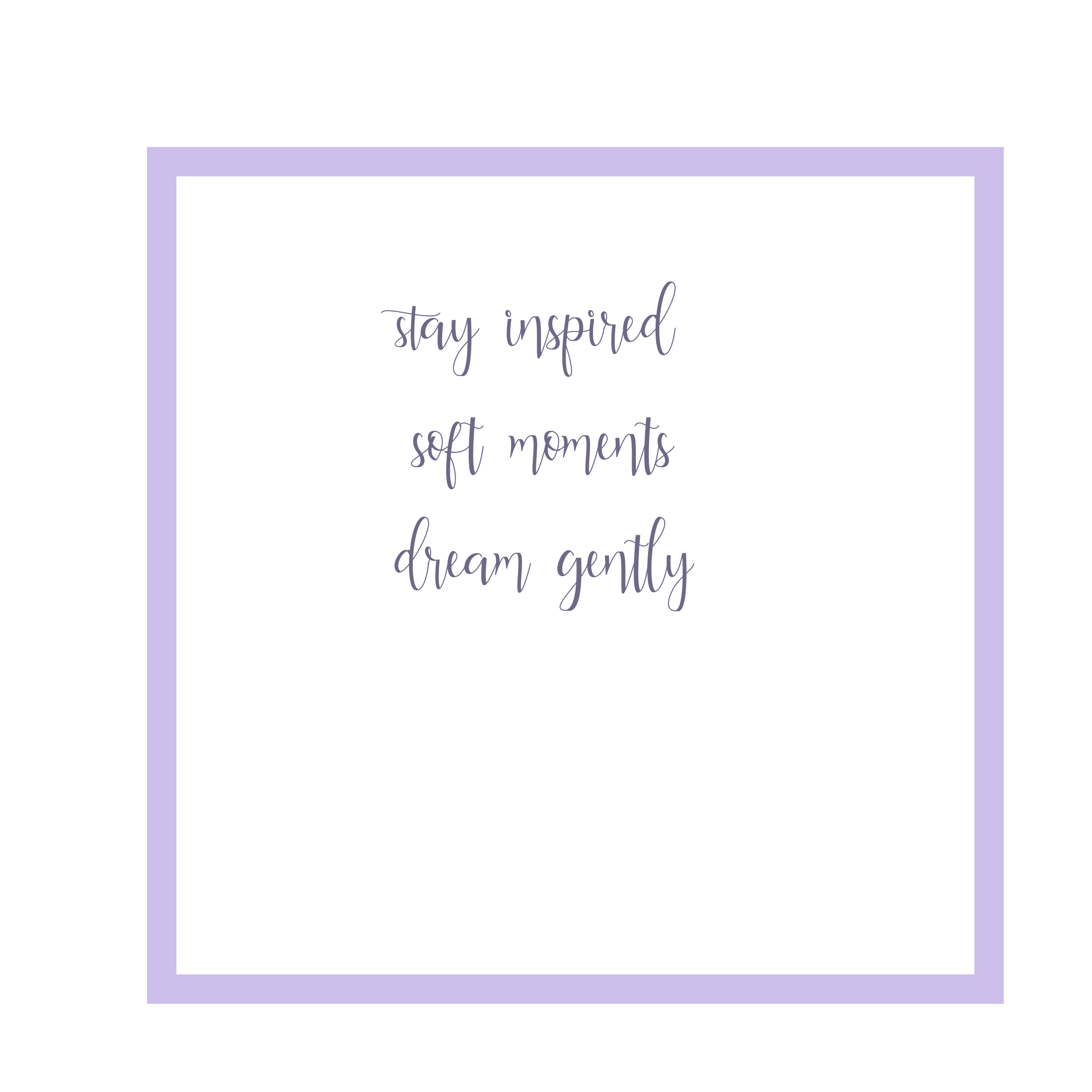
Alderta Modern Script Font | Cricut Font | Handwritten Logo & Branding Font
✨ Alderta is a modern handwritten script font with smooth curves and a soft, stylish feel — perfect for Cricut projects, logos, branding, shirts, tote bags, invitations, and more.
💜 Designed to be readable, elegant, and craft-friendly
💜 Clean cuts and smooth lettering
💜 Works beautifully for both personal & small business use